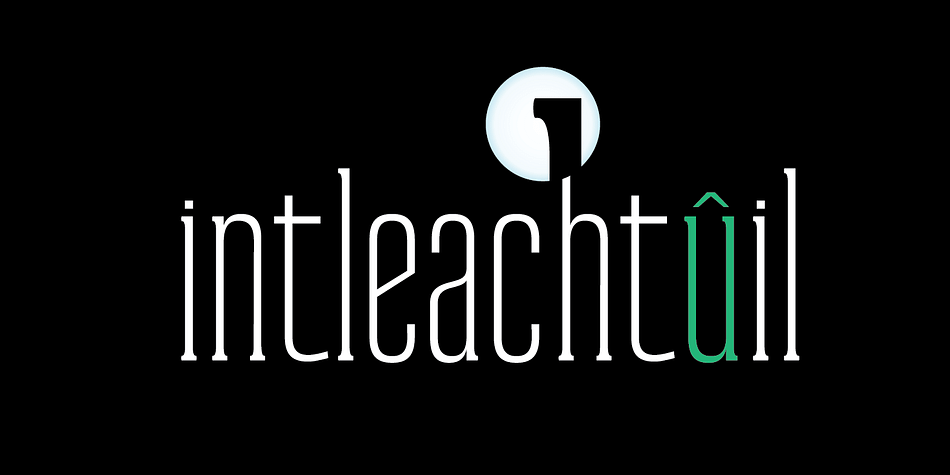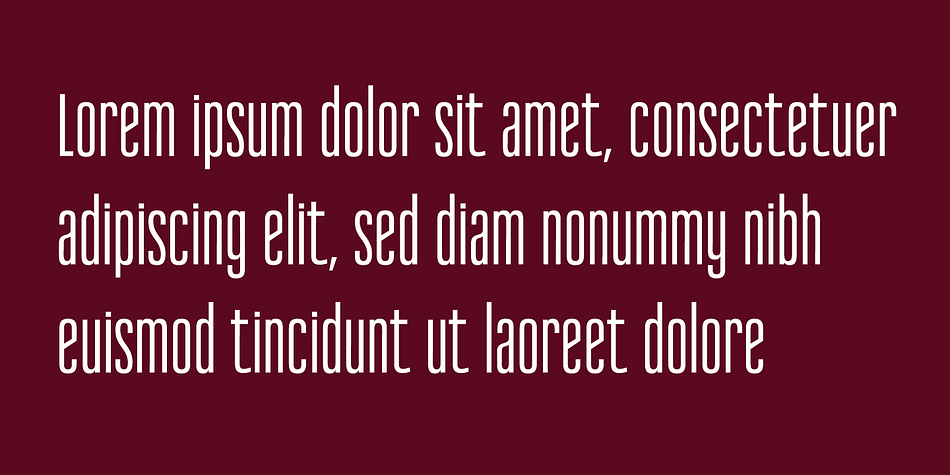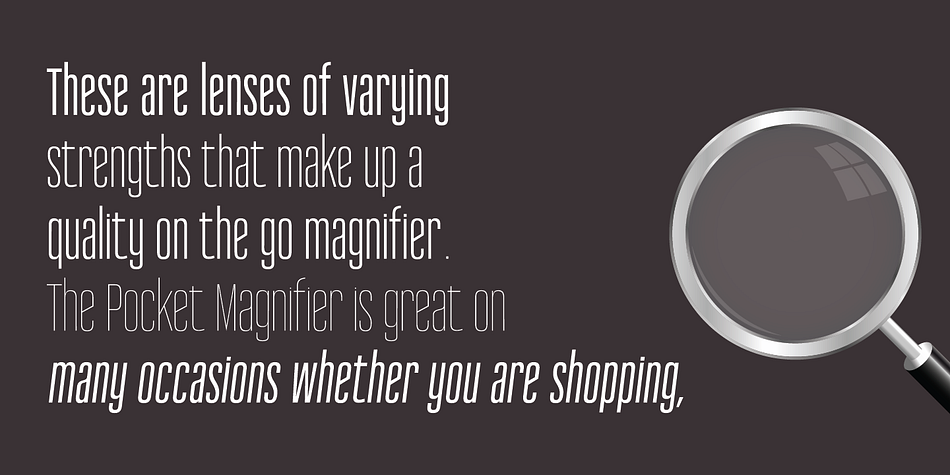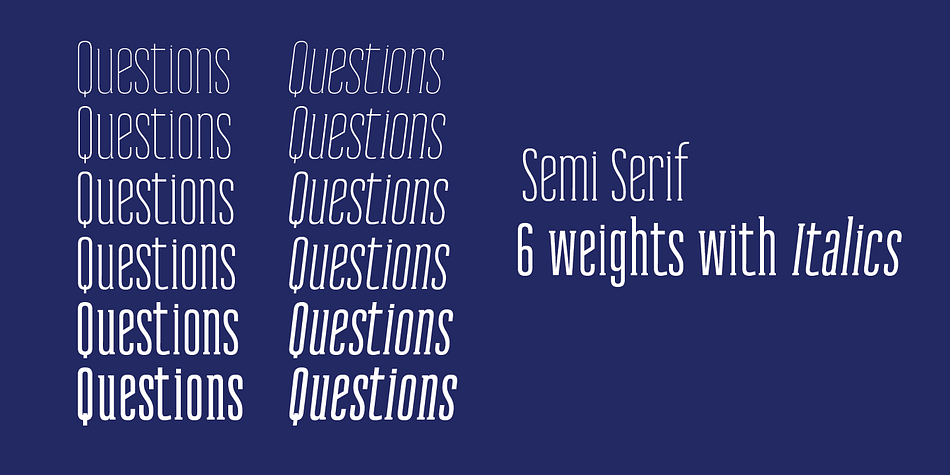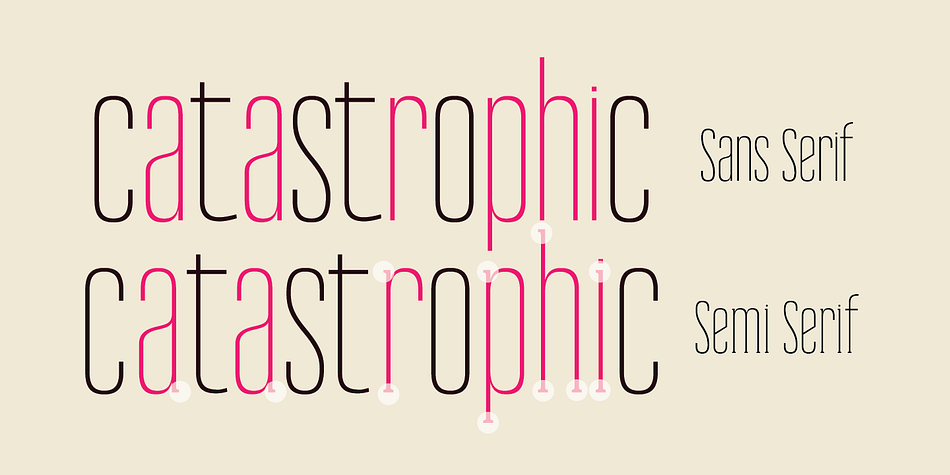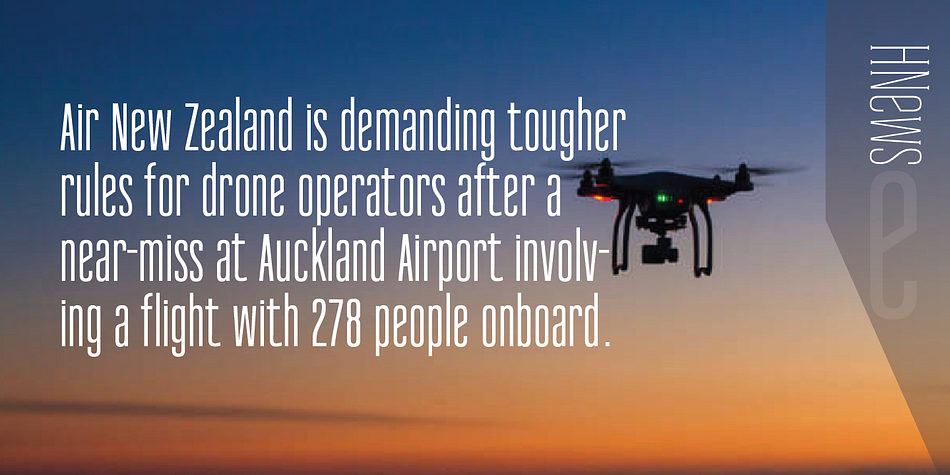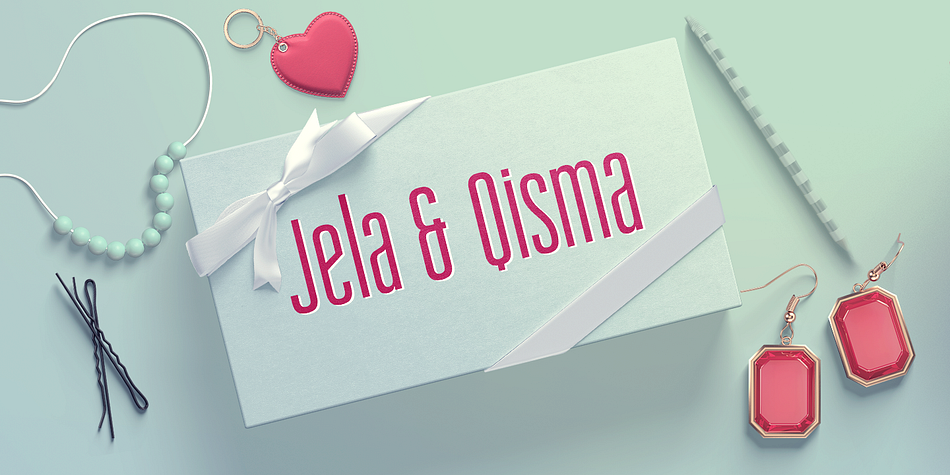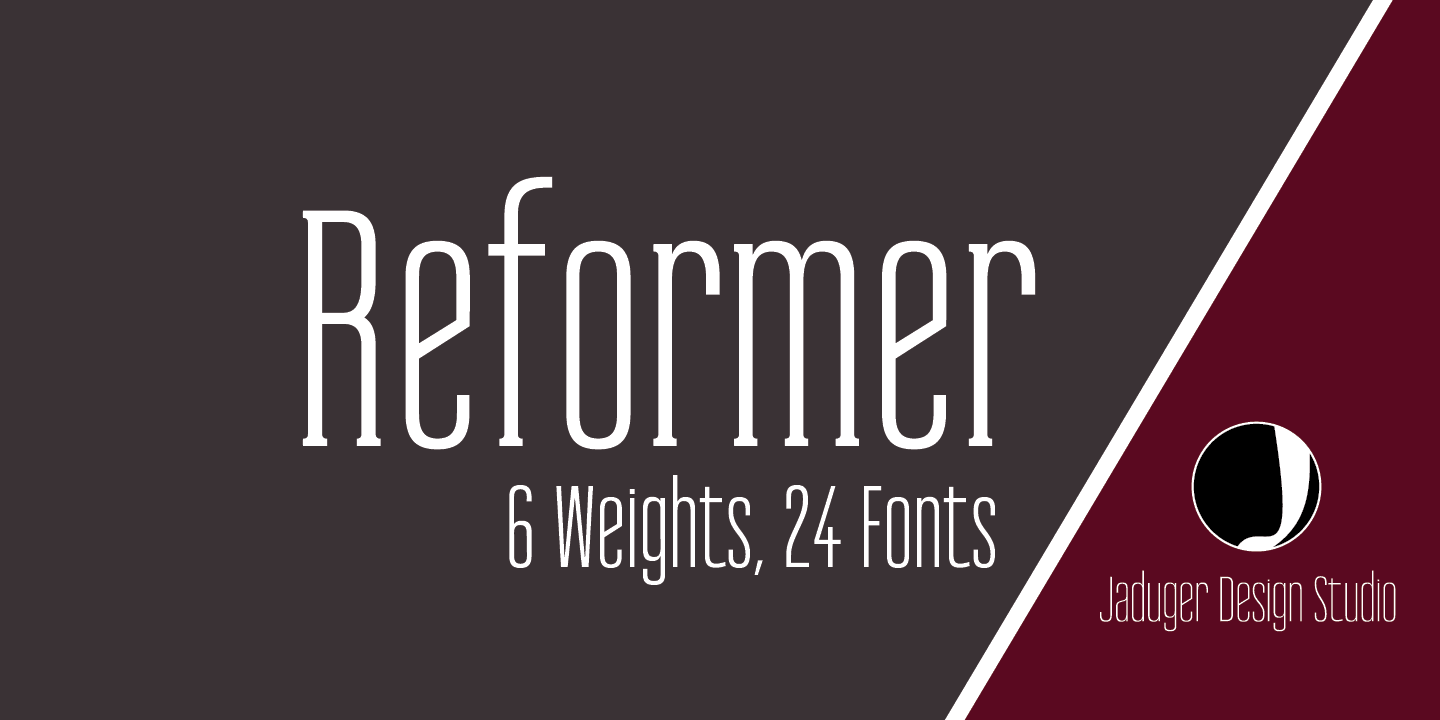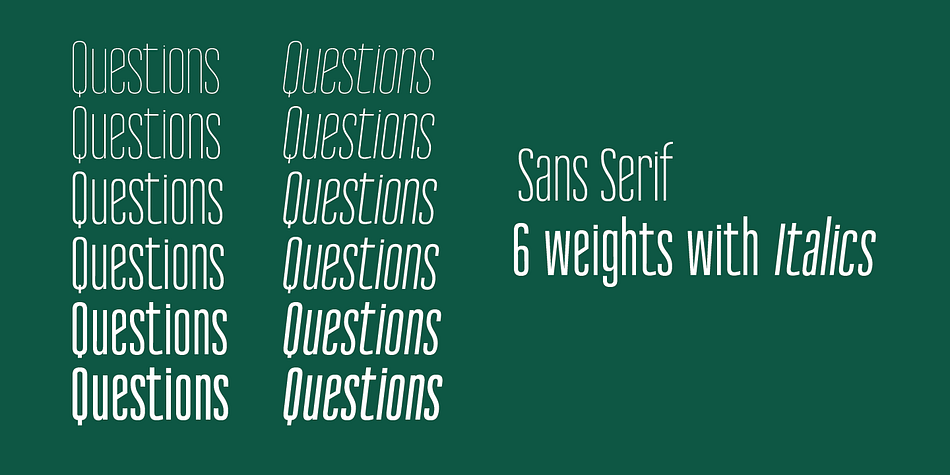
Designed by Mubarak Minhas, Reformer is a display sans and display serif font family. This typeface has twenty-four styles and was published by Jadugar Design Studio.
Reformer is new Gothic styled font with 6 weights and 24 variations.
It has been a long desire to craft such a fine and clean Gothic style font that have two styles serif and semi serif. Now I am very glad to release this today. This family offers multilingual support.
1. In two styles: serif and semi sans serif
2. More than 317 glyphs
4. Supports most major languages
5. Contains 24 fonts in 6 weights
This is an ideal for your upcoming project and suitable for all modern needs. It is carefully crafted to give very pleasing affect of your poster, book cover design, headers and so on.